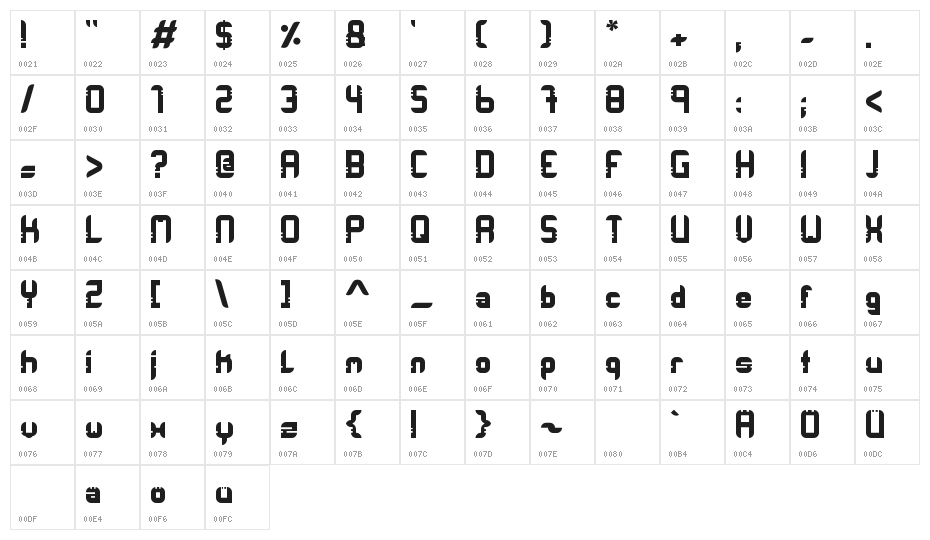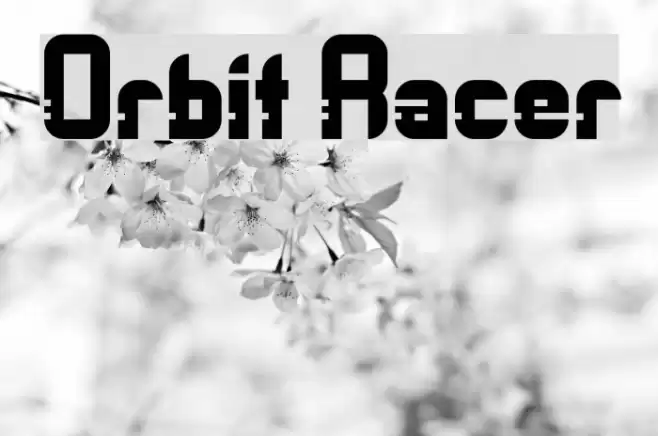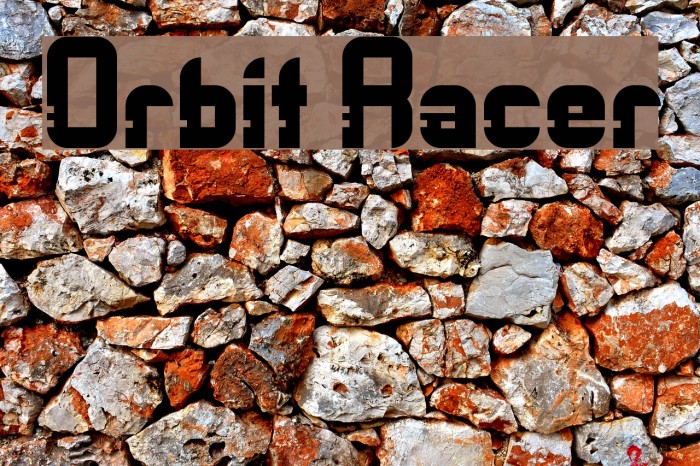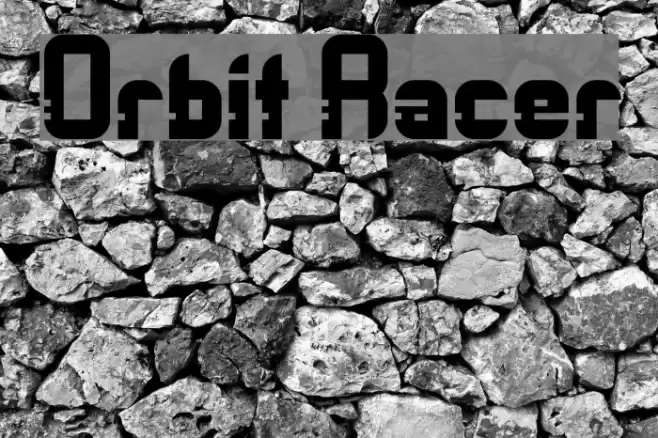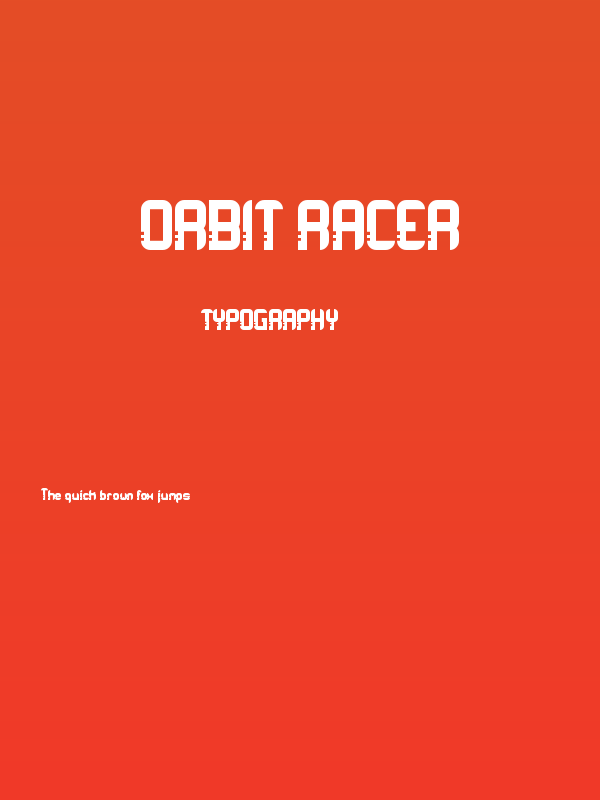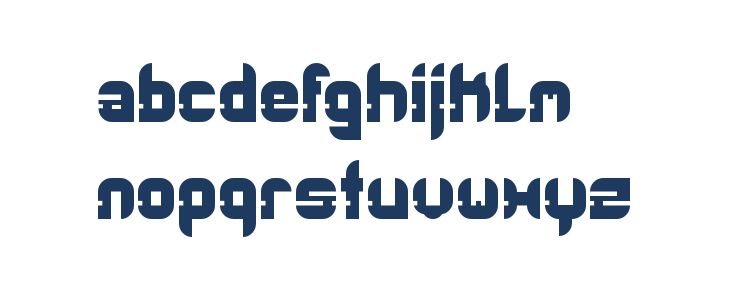
Orbit Racer Font
Orbit Racer Description
This font features a futuristic and bold design with a unique, mechanical aesthetic. The characters are constructed with thick, solid strokes and incorporate distinctive horizontal lines that intersect the vertical strokes, giving it a digital or robotic feel. The uppercase and lowercase letters maintain a consistent style, with rounded edges and a uniform thickness that enhances readability while still appearing modern and edgy. The numerals and special characters follow the same design principles, ensuring a cohesive look across all glyphs. This font is ideal for projects that require a strong, contemporary presence.
Proposed ProjectsIdeal for technology branding, video game titles, sci-fi movie posters, and digital interfaces.